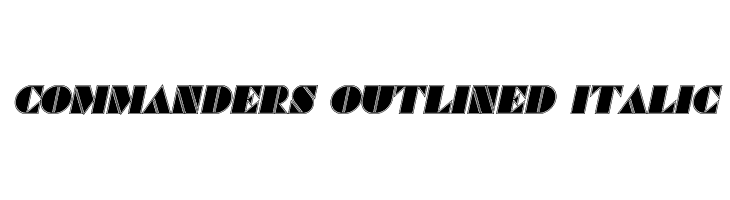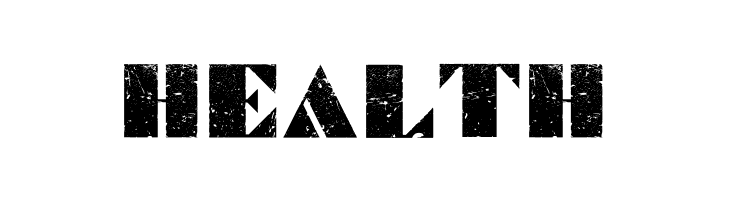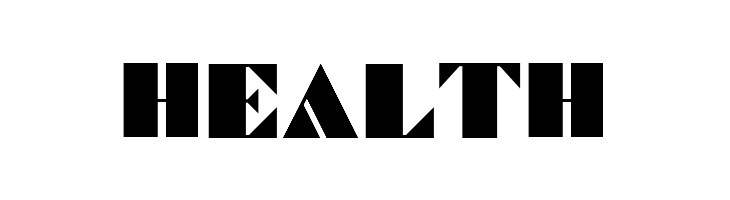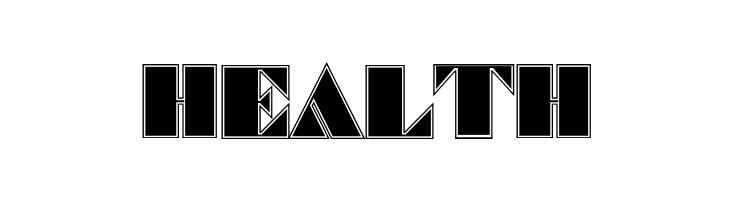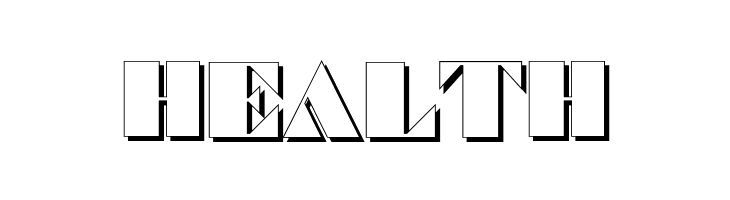
A bold, distressed font with a grunge texture and rugged appearance.
A bold, italicized outlined font with a modern and dynamic style.
A bold, italic font with sharp angles and a dynamic, modern style.
A bold, geometric font with high contrast and angular cuts.
A bold, outlined font with a modern, geometric style.
Bold, italicized font with a shadow effect for a dynamic, three-dimensional look.
A bold, italicized grunge font with a rugged, distressed texture.
A bold, geometric font with a three-dimensional shadow effect for a striking visual impact.
A bold, 3D font with a filled interior and prominent outline, perfect for modern designs.
A bold, geometric font with a modern and clean design.